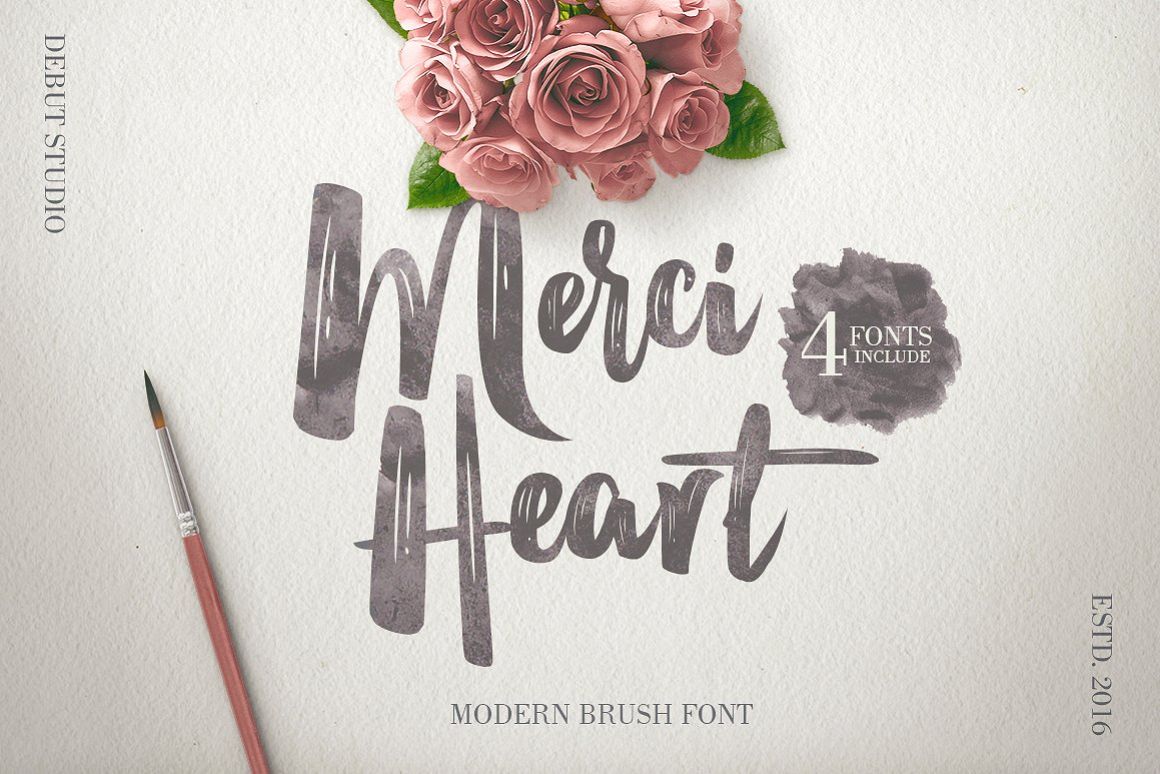
Debut Studio presents the latest font Merci Heart Brush Font
This font is built to meet your needs, whereas designers who use a natural brush font, then you must have this font. Merci Heart Brush Font is perfect for design purposes such as title title, magazine, newspaper, website, to design quotations, posters, business cards, and others.
It has 3 small alternative fonts, allowing you to choose to keep the text and look handmade.
- OpenType Features - stylistic alternates,
- complete ligatures.
- Multilingual support - spread your message globally AÀÁÂÃÄÅCÇDÐEÈÉÊËIÌÍÎÏNÑOØÒÓÔÕÖUÙÜÚÛWYÝŸ?ŸÆŒß